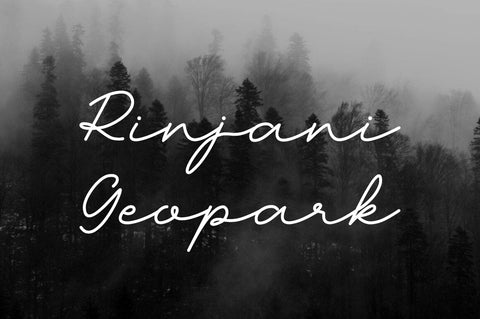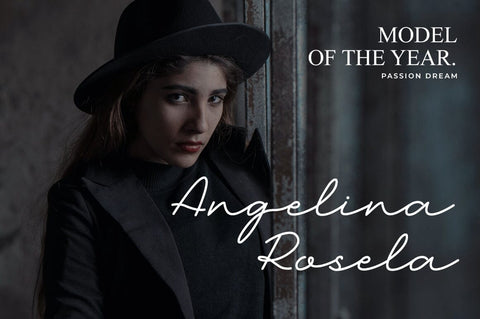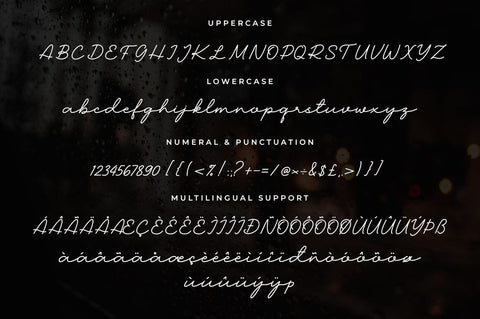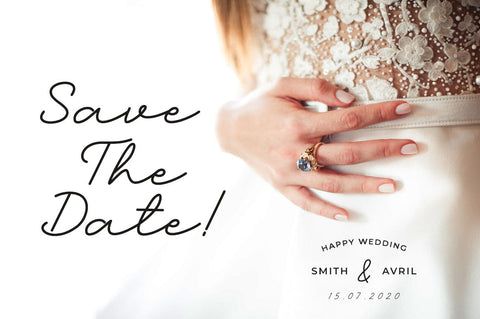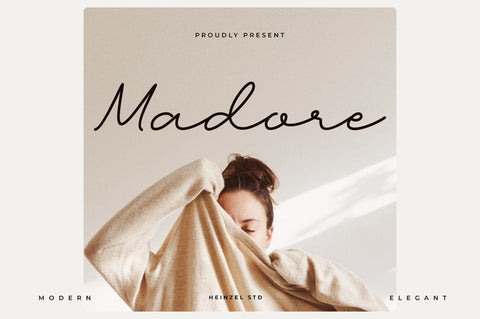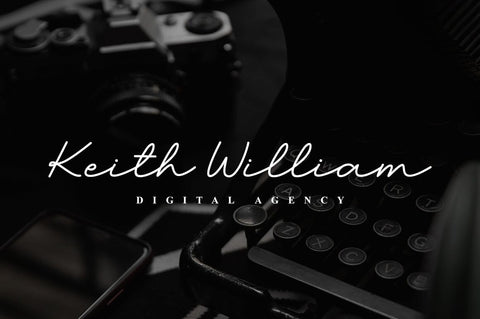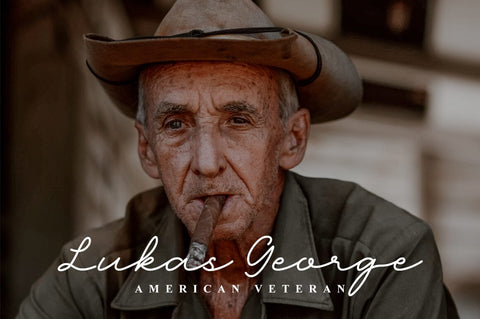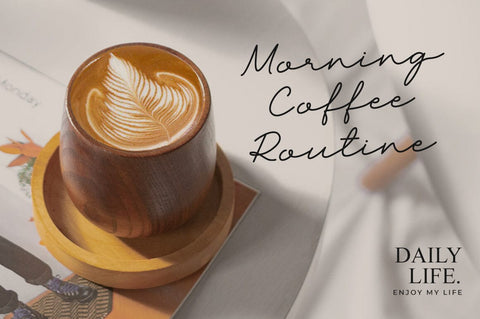
Madore Modern Script Font
Madore is an elegant and modern script font. It maintains its classy calligraphic influences while feeling contemporary and fresh. This versatility will appeal to a wide range of crafty ideas, from letterheads and titles to stationery.